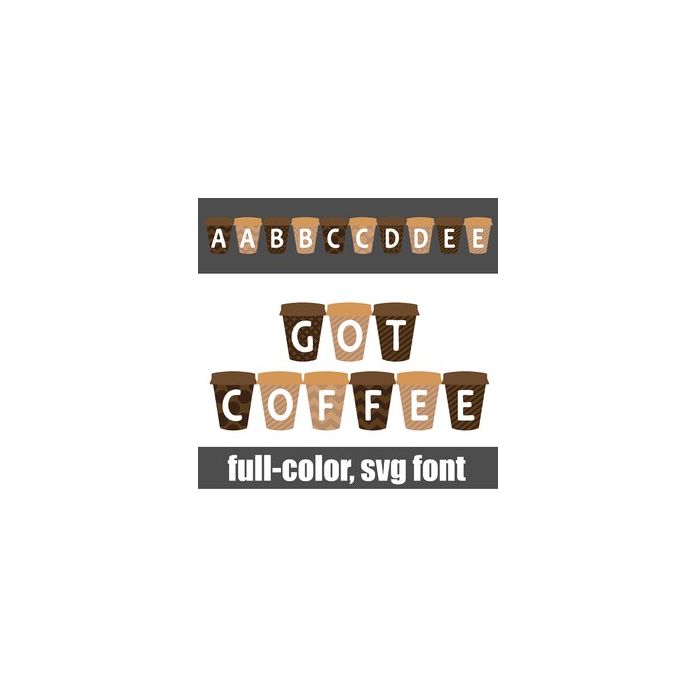
This full-color font features coffee to go with patterned cups. There is an alt case w/ additional colors you can access through your system or Silhouette's glyph map.